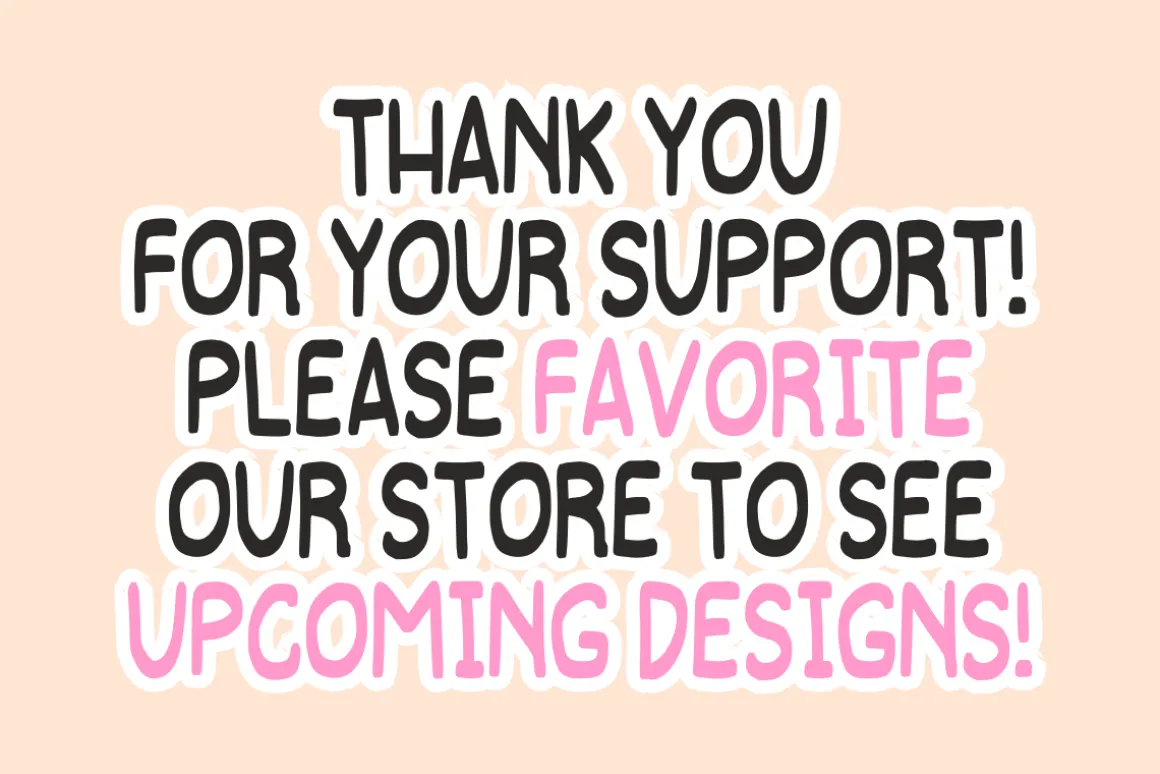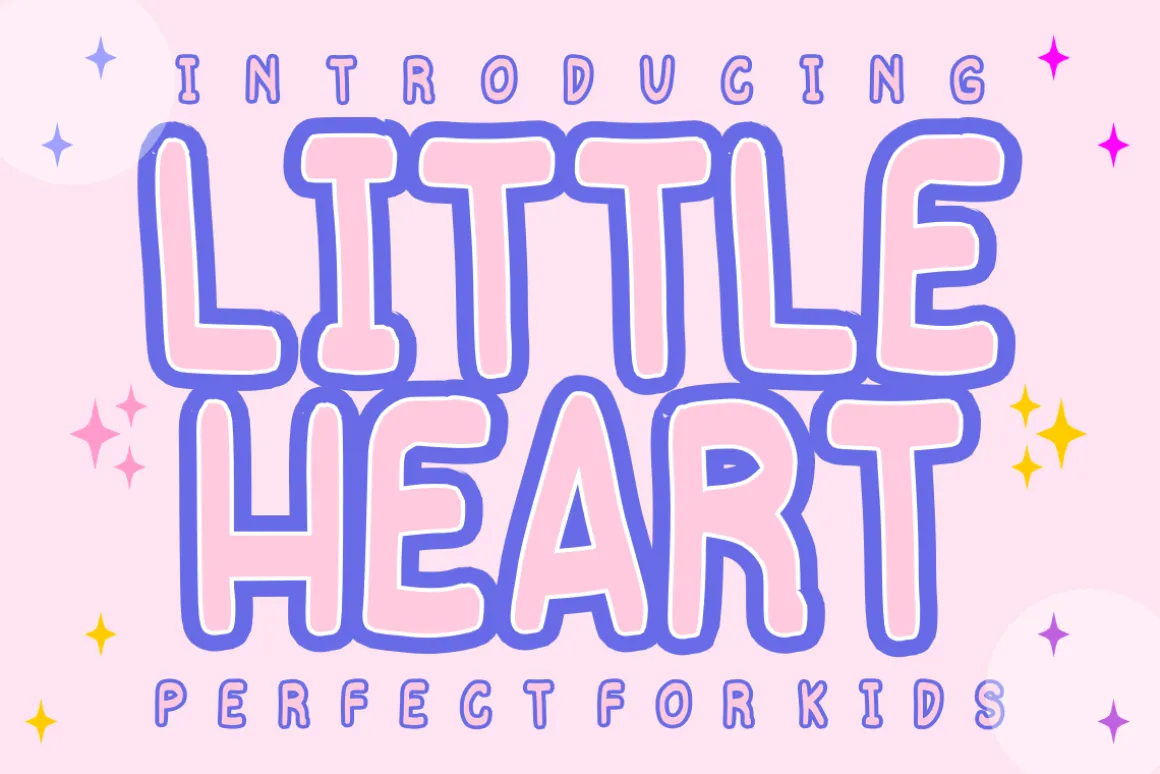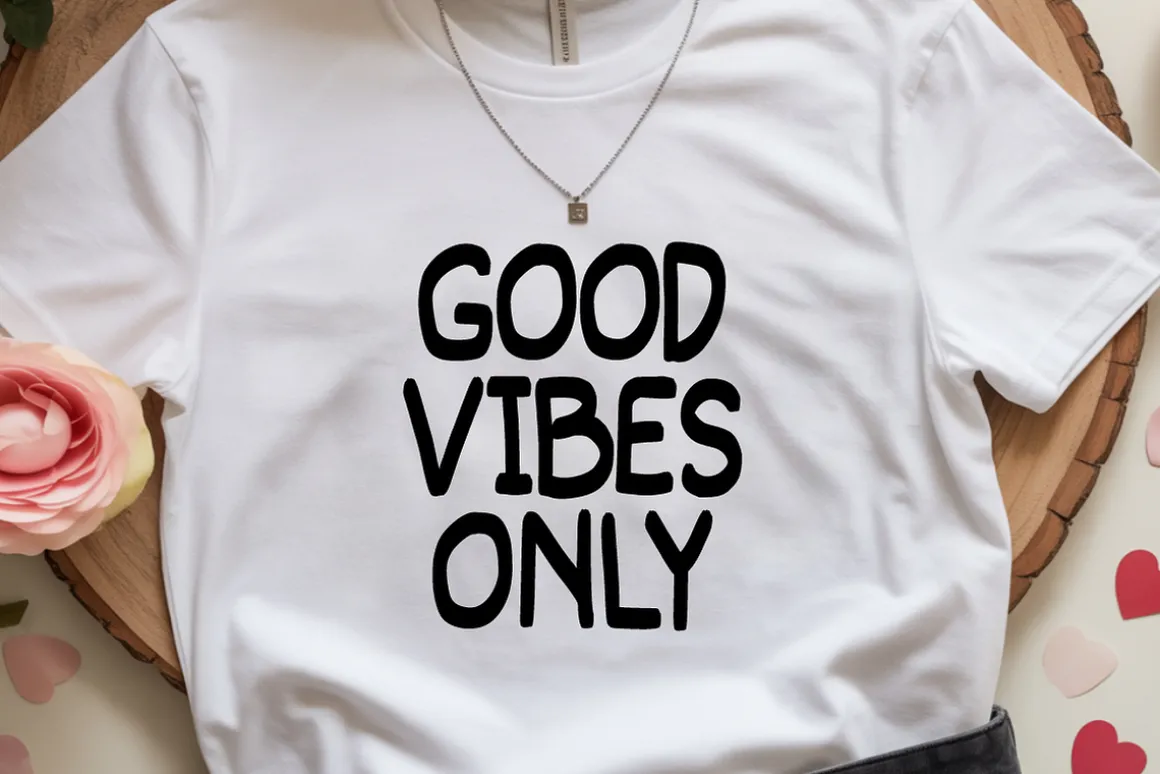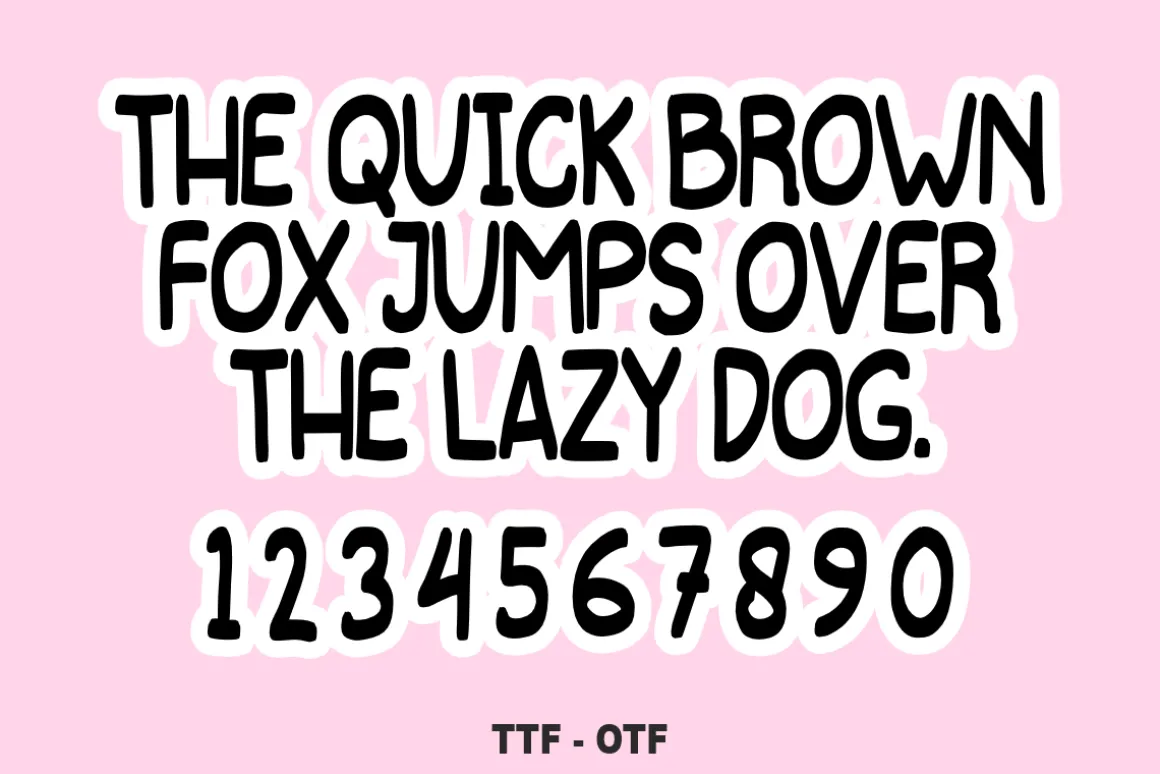
Little Heart – A Sweet & Playful Bubbly Display Font ✨💖
Add a touch of charm and sweetness to your next creative project!
Little Heart is a delightful, hand-drawn display font designed with a soft, bubbly silhouette. Its friendly and approachable letterforms make it an ideal choice for designs that need to feel warm, joyful, and full of personality. Whether you are creating for a nursery, a school project, or a playful brand, this font is engineered to bring a smile to your audience.
🌟 Why Little Heart is a Must-Have:
Sweet & Playful Aesthetic: The rounded, “hollow” design with thick outlines gives it a trendy sticker-style look that pops on any background.
High Legibility: Despite its playful character, the bold forms ensure your headlines and titles remain easy to read.
Versatile Design: Perfectly suits everything from soft pastel palettes to vibrant, energetic colors.
Complete Character Set: Bold & Bubbly Uppercase Letters (A-Z).
Numbers & Symbols: Full numerals (0-9) and essential simple punctuation.